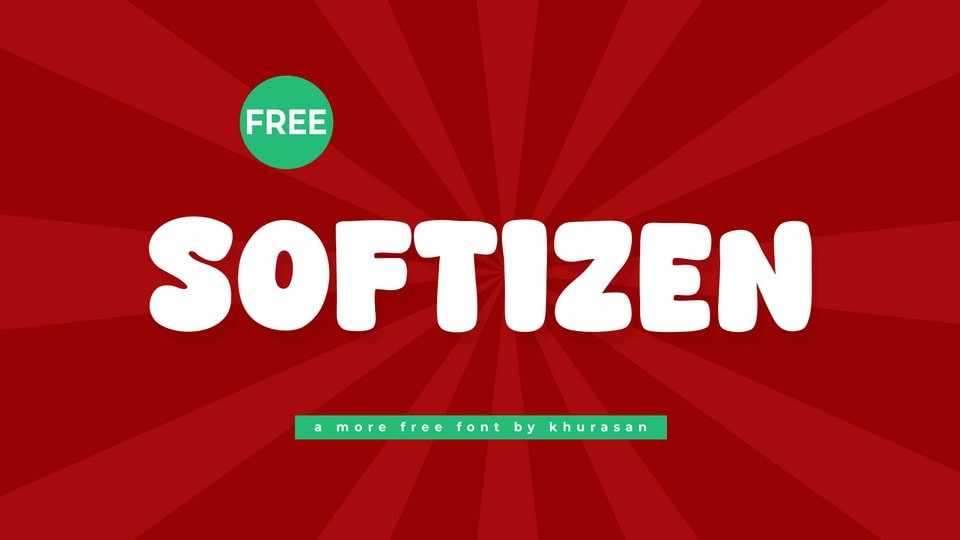
Download Softizen font, a bold yet playful hand-crafted typeface with rounded letters and a friendly personality with its smooth curves and soft edges.